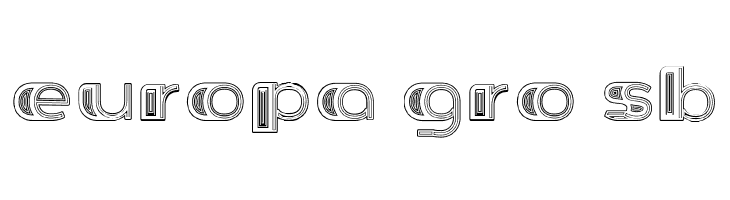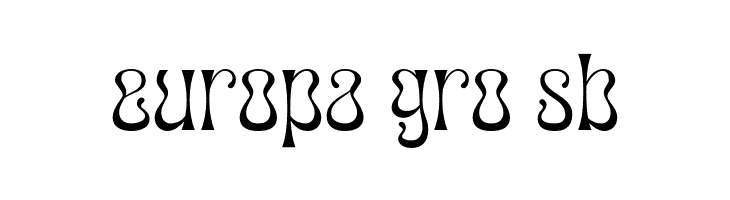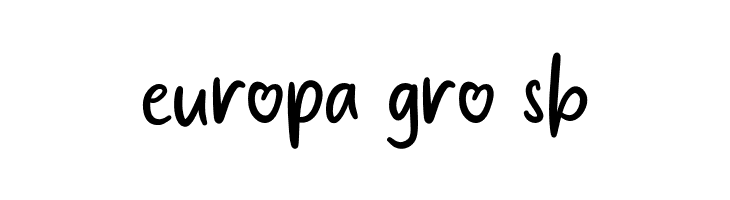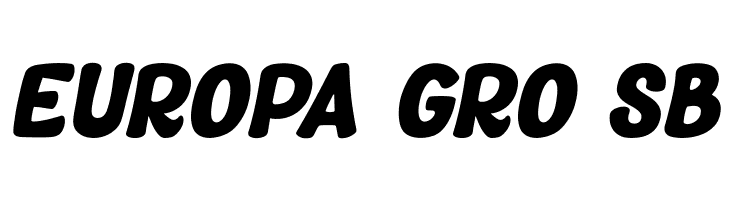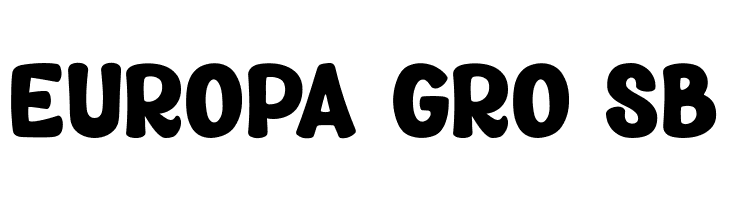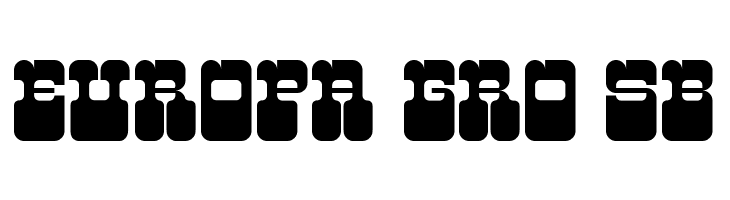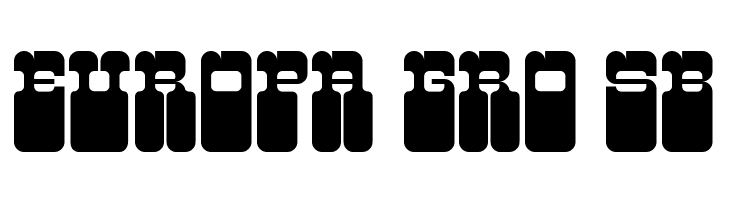
Fonts added on February 08, 2025 (38)
Achiever Regular Font
Font by Vladimir Nikolic
A bold, geometric font with a multi-line, layered effect for a modern, decorative look.
Artistry Valentino Font
A playful, handwritten font with smooth, rounded edges and a casual style.
Benomout Font
Font by Storytype Studio
A playful, bold font with rounded, bubbly characters ideal for fun projects.
Best Love DEMO Font
Font by vilogsign
A bold, playful font with rounded edges and a whimsical style.
Best Love DEMO Italic Font
Font by vilogsign
A bold, italicized font with thick, rounded strokes and a playful style.
Breathtaking Maldives Free Reg Font
Font by
letterhanna
A clean, modern font with balanced strokes and elegant design.
CanobisFree-Regular Font
Font by Craft Supply Co.
A bold, decorative font with playful curves and varying stroke widths.
CHASLOW-Regular Font
Font by twinletter
A bold, modern font with sharp angles and smooth curves, perfect for impactful designs.
Discomobile 1972 High Font
Font by Damien Gosset
A bold, retro font with thick, blocky characters and a 1970s aesthetic.
Discomobile 1972 Mid Font
Font by Damien Gosset
A bold, geometric font with a retro 1970s vibe, featuring blocky characters and rounded edges.
Discomobile 1972 Regular Font
Font by Damien Gosset
A bold, geometric font with a retro 1970s style and rounded edges.
Funkley Free Regular Font
Font by Craft Supply Co.
A playful, bold, and whimsical font with a hand-drawn appearance.
FunkleyFree-Regular Font
Font by Craft Supply Co.
A playful, hand-drawn font with bold strokes and a whimsical, artistic style.
GladoliaDEMO-Regular Font
Font by Dharmas Studio
A bold, playful font with thick, rounded strokes and a whimsical style.
GladoliaDEMO-Shadow Font
Font by Dharmas Studio
A playful, bold font with a three-dimensional shadow effect.
Happy Town Font
A playful, bold, and rounded font with a hand-drawn aesthetic.
Jungle Island Font
A playful, casual handwritten font with smooth, rounded strokes.
KickboxDEMO-Narrow Font
Font by Dharmas Studio
A bold, geometric, and modern font with a blocky, futuristic design.
KickboxDEMO-Regular Font
Font by Dharmas Studio